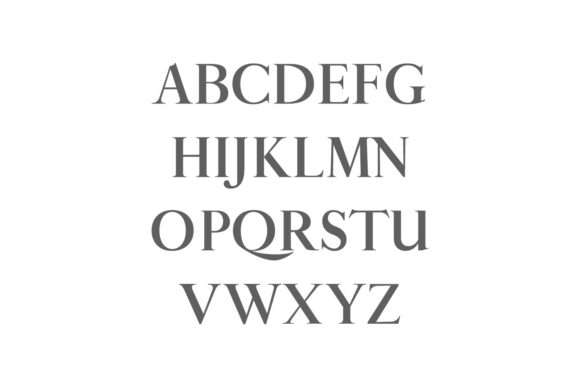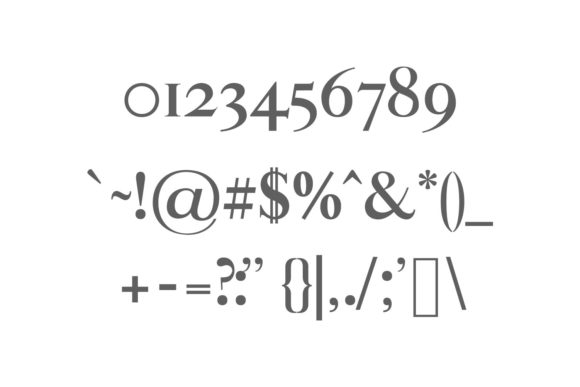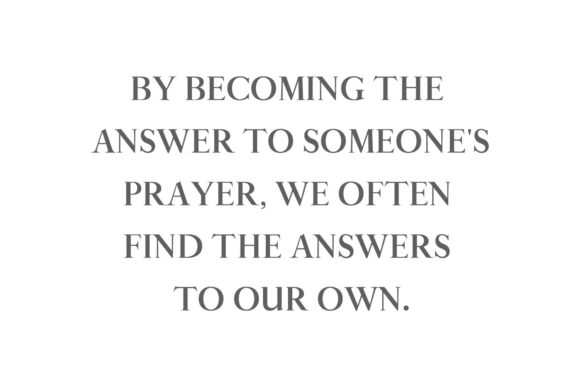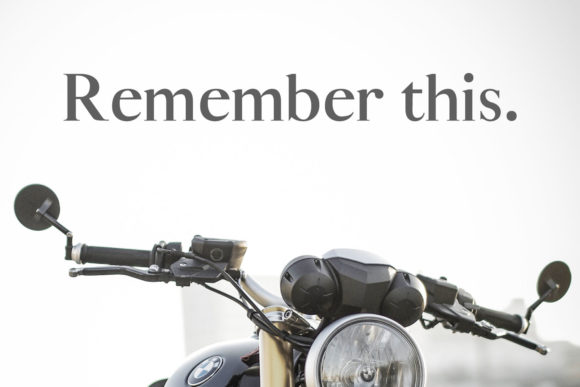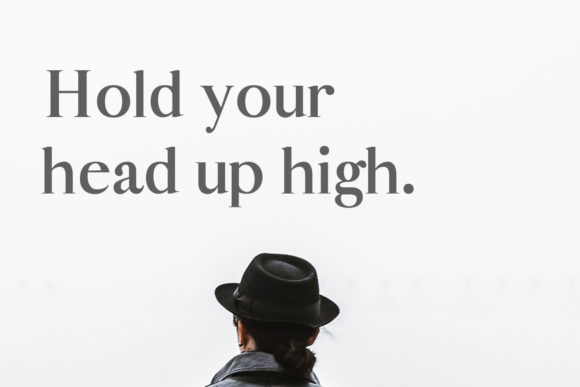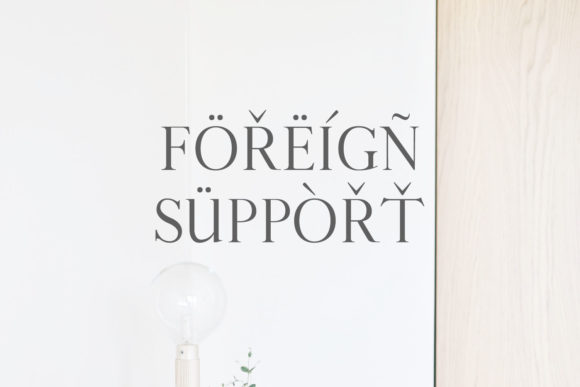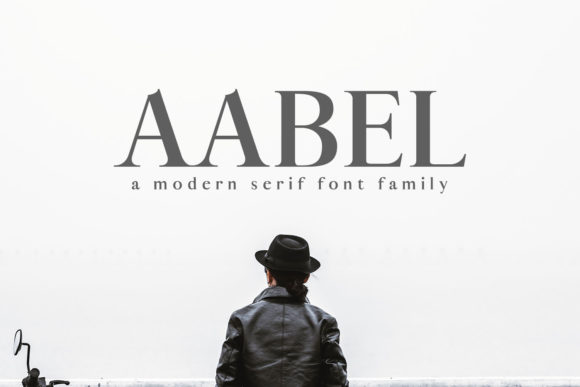
The Aable Family Font: Elevate Your Designs with Modern Elegance
I’ll never forget the design project that had me stuck in a font rut. I was working on a sleek logo for a new boutique hotel, and no matter how hard I tried, I just couldn’t find the perfect typeface. That was until I stumbled upon the Aable Family Font. With its modern and minimal serif design, it instantly added a touch of class to my project and helped me deliver exactly what my client was looking for.
So, what makes the Aable Family Font so special? Let’s dive into the details.
- ✨ Modern and Minimal Design: The Aable Family Font boasts a clean and contemporary look that’s perfect for designs that need a bit of sophistication.
- ✅ Versatile Styles: With three included styles, you can mix and match to create a unique visual identity for your project.
- 💡 Ease of Use: Whether you’re a seasoned designer or just starting out, the Aable Family Font is easy to work with and integrates seamlessly into various design platforms.
- 📚 Wide Range of Applications: From logos and headlines to posters, branding, and magazines, this font is incredibly versatile.
While the Aable Family Font is incredibly versatile, there are a few things to keep in mind:
- 🤔 Glyph Limitations: As with any font, there might be limitations to the number of glyphs available, which could impact your design if you need a very specific character set.
- ⚠️ Overuse: Given its elegance, there’s a risk of overusing the font in a single design. Make sure to balance it with other elements to keep your design fresh.
The Designer Inspiration Behind Aable Family Font
The Aable Family Font was designed with the modern designer in mind. Its creator aimed to craft a font that was not only beautiful but also versatile and easy to use. Inspired by contemporary design trends and a desire to create a clean, classy look, the Aable Family Font has quickly become a favorite among designers looking for that perfect blend of modernity and elegance.
Q: What makes the Aable Family Font unique?
A: The Aable Family Font stands out due to its modern and minimal serif design, offering a classy style that can add charm to various designs.
Q: How many styles are included in the Aable Family Font?
A: The Aable Family Font comes with three styles, which can be combined to create a unique look for your designs.
Q: Is the Aable Family Font easy to read?
A: Absolutely! Despite its modern and minimal design, the Aable Family Font is highly legible, making it suitable for both headings and body text.